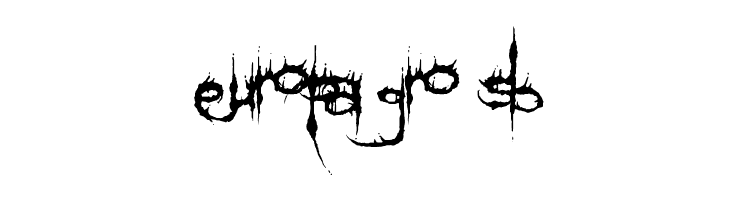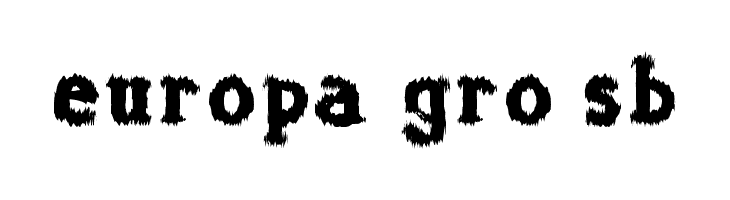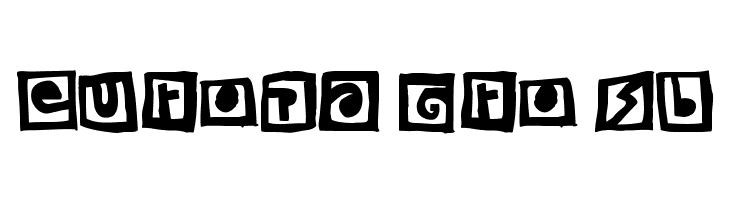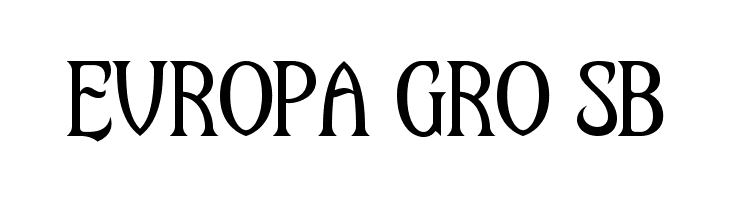
( Fonts by Klinge Art )
A dark, edgy font with jagged edges and a dripping brushstroke style.
A decorative, distressed font with jagged edges and a bold, grunge style.
( Fonts by Szabi's Creative World )
A playful, straw-inspired decorative font with a hand-drawn look.
( Fonts by Chris Vile )
A chaotic, jagged font with a raw, hand-drawn appearance.
A modern, artistic font with thin lines and playful circular elements.
A bold, blocky font with characters enclosed in squares, offering a playful and artistic style.
A bold, distressed font with a vintage woodcut style.
A bold, abstract font with an alien-like, hand-drawn style.
( Fonts by Alberto Mafficini )
A dramatic, gothic-style font with sharp serifs and a mysterious aesthetic.
A bold, expressive script font with a modern and flowing style.